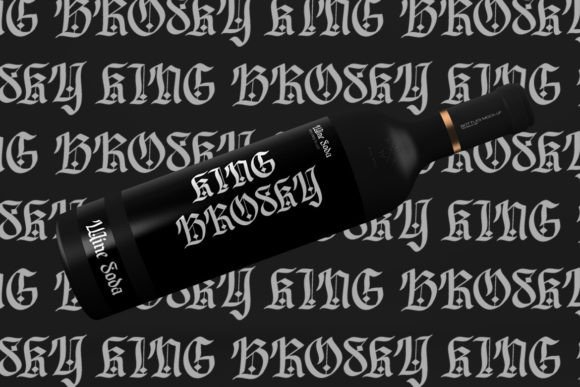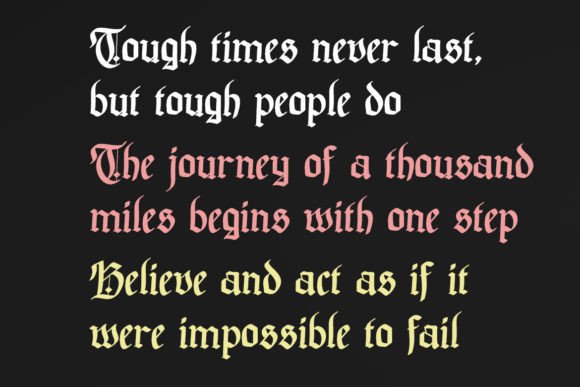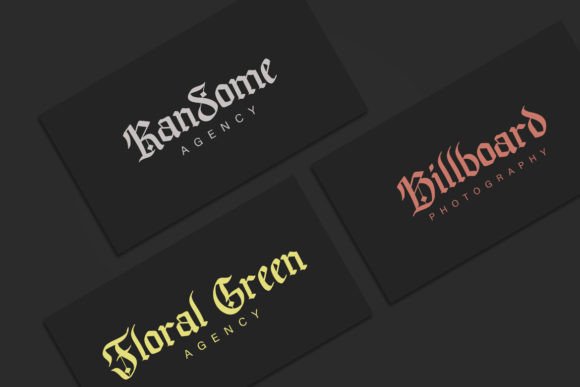
Foldaky Shield Font: Bold Blackletter for Unique Logo Design
About the Foldaky Shield Font
Meet Foldaky Shield Font, a stunning font that brings a touch of elegance and professionalism to any design. Foldaky Shield is a stylish blackletter font with a bold and edgy design. It features sharp, decorative letters that give a medieval and gothic feel. Perfect for creating striking logos, posters, and headlines that need a strong and unique look.
Foldaky Shield excels in applications requiring a bold visual impact, such as logos for heavy metal bands, gaming brands, or fantasy-themed projects. It also works well for posters, headlines, and short impactful statements where its strong personality can shine. However, its ornate detailing makes it unsuitable for body text or UI elements; the intricate letterforms would be difficult to read at smaller sizes and negatively impact user experience.
Pairing Foldaky Shield with a clean sans-serif like Open Sans for body text creates a strong contrast, balancing the boldness of the blackletter with high readability. For a more sophisticated feel, consider a classic serif like Garamond or a more modern geometric sans-serif such as Futura. These pairings allow Foldaky Shield to retain its visual dominance while ensuring overall design clarity.
The font’s core personality is assertive and rebellious, conveying power and a touch of darkness. It is best suited for projects aiming for a strong, memorable visual identity that reflects a similarly bold brand message.
Foldaky Shield Font Usage Examples
Foldaky Shield Font Example